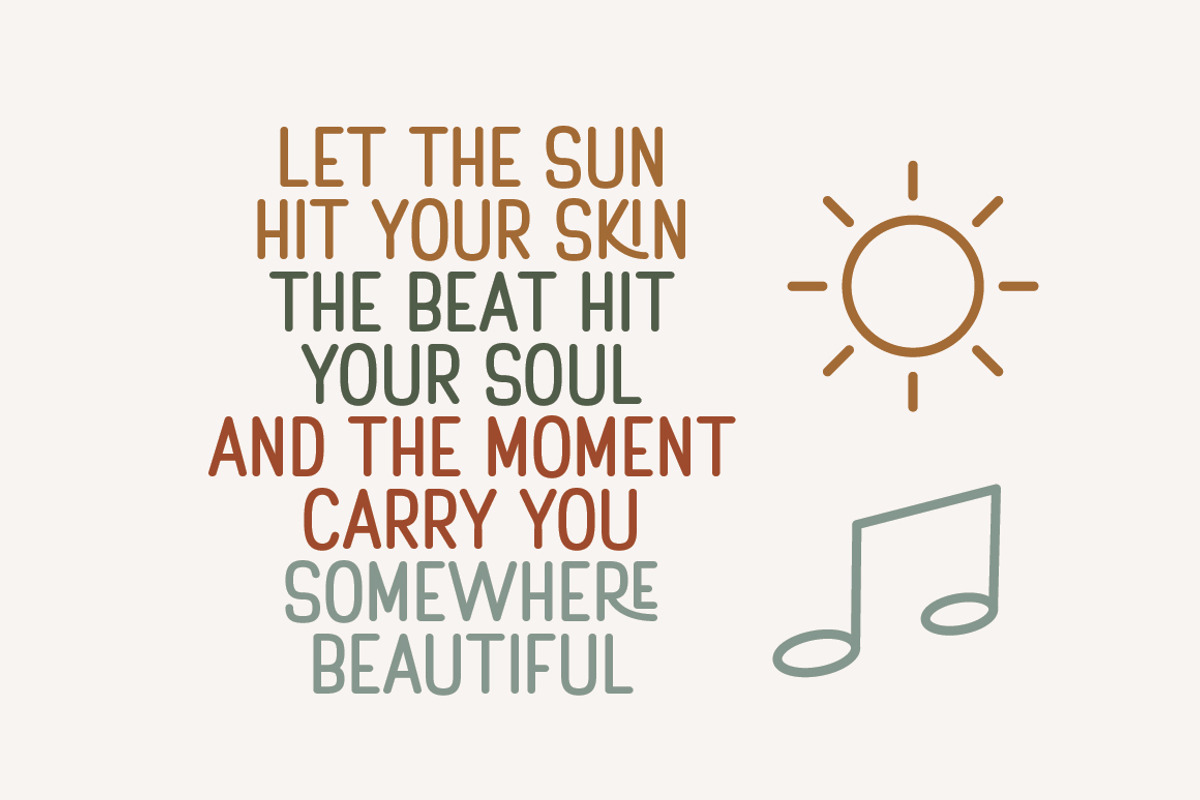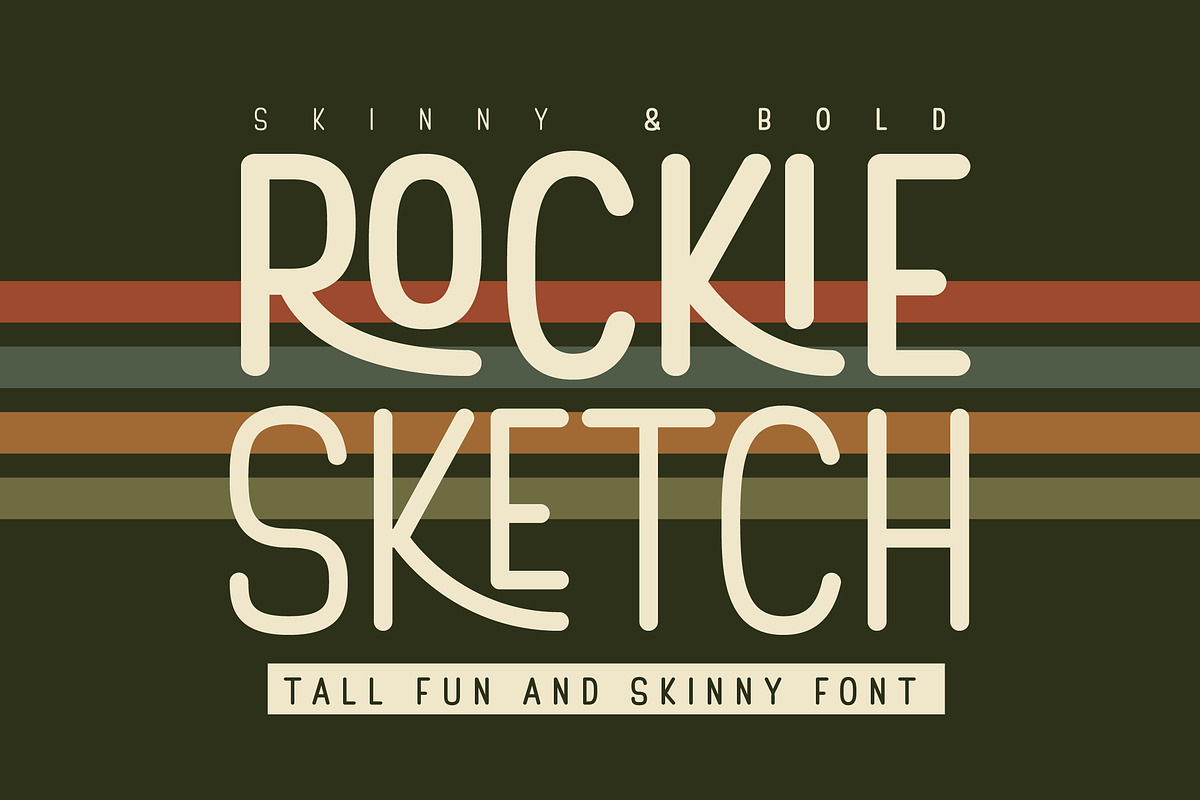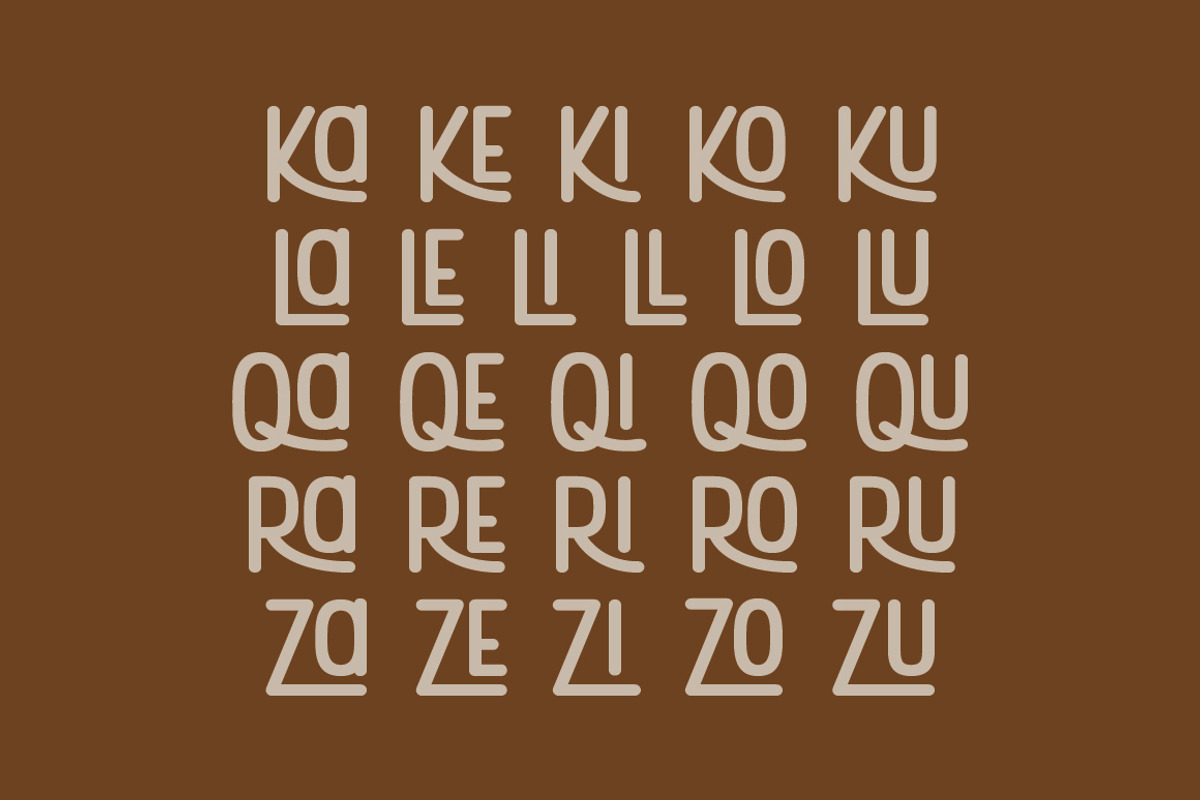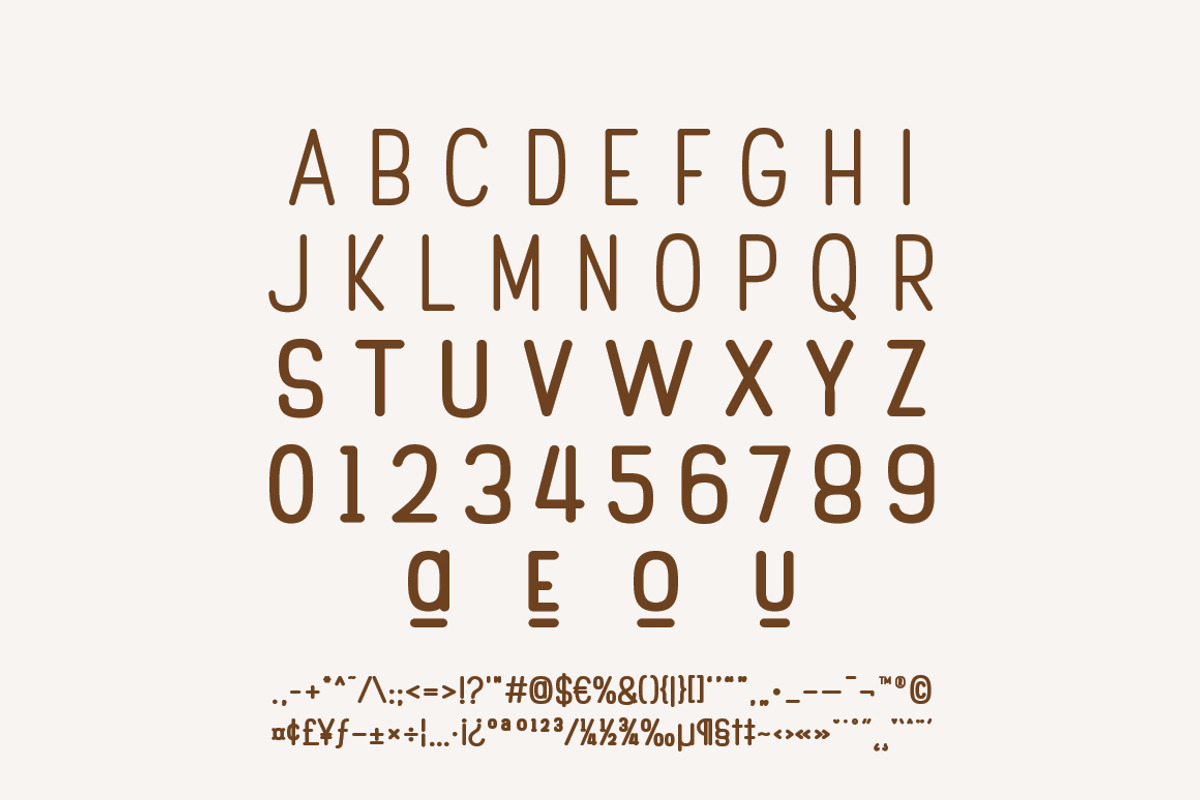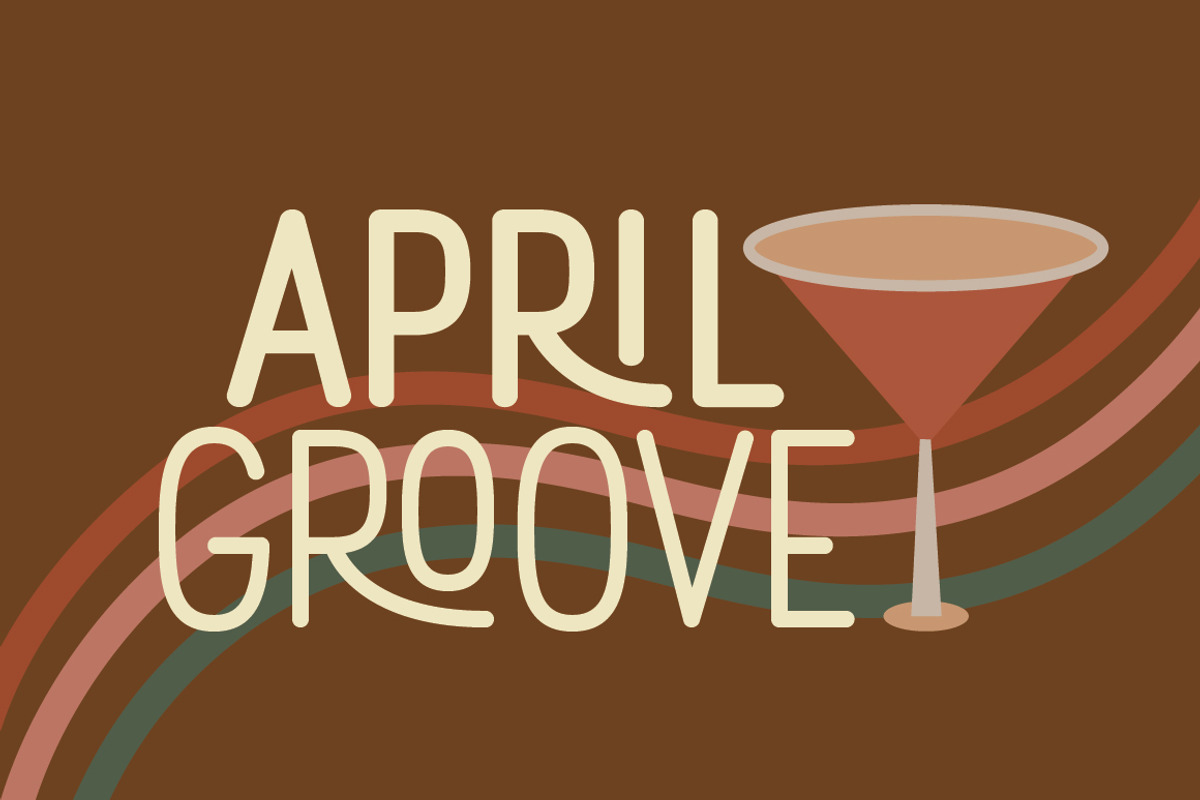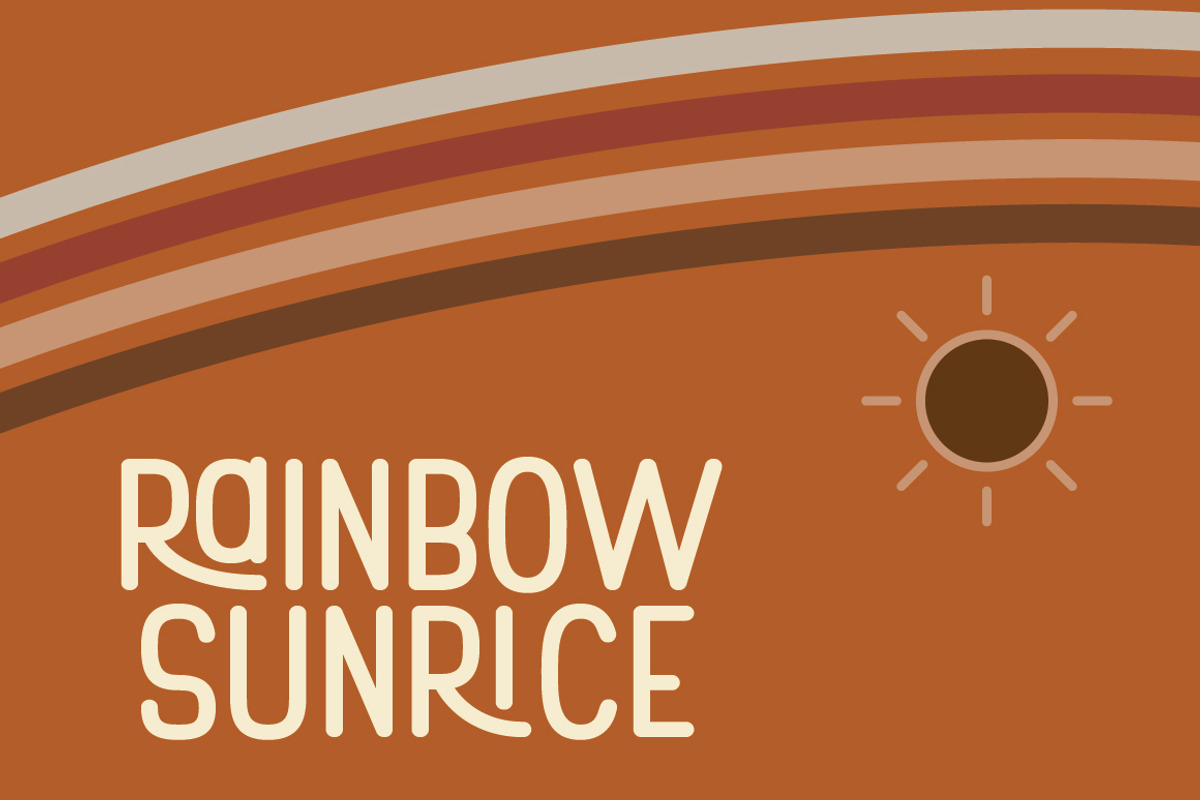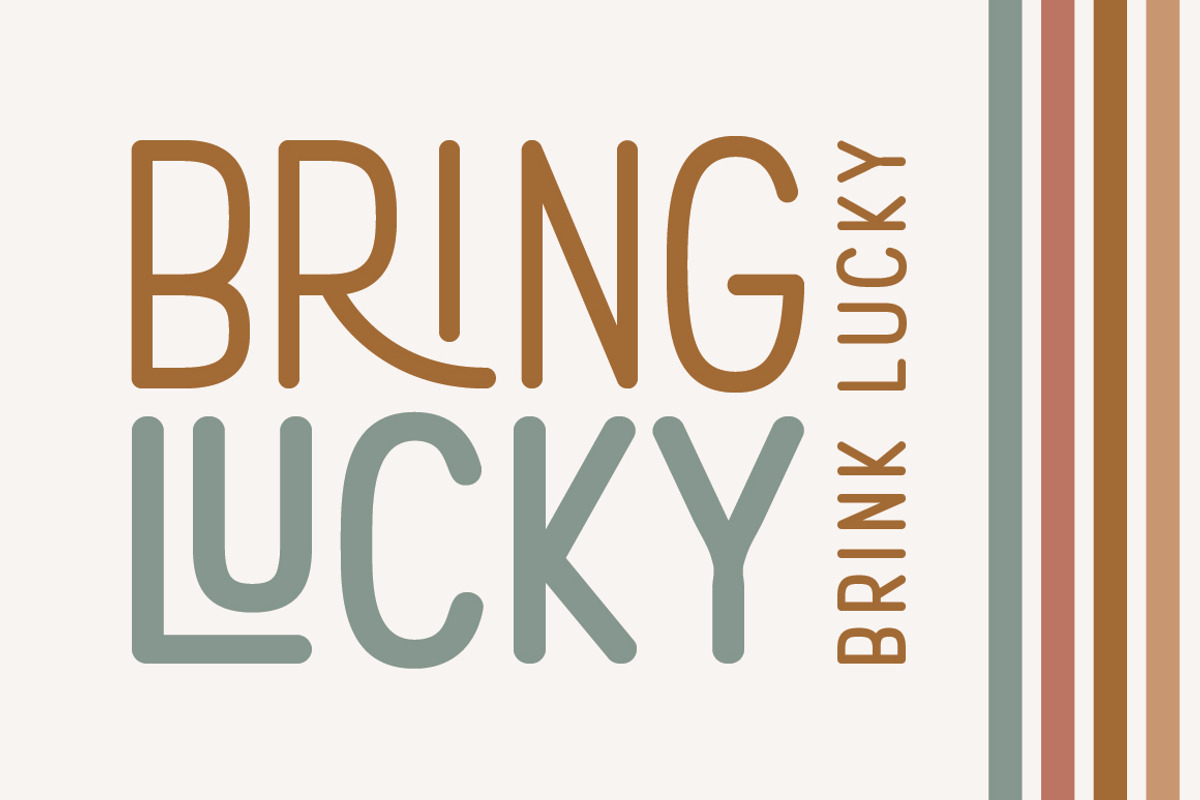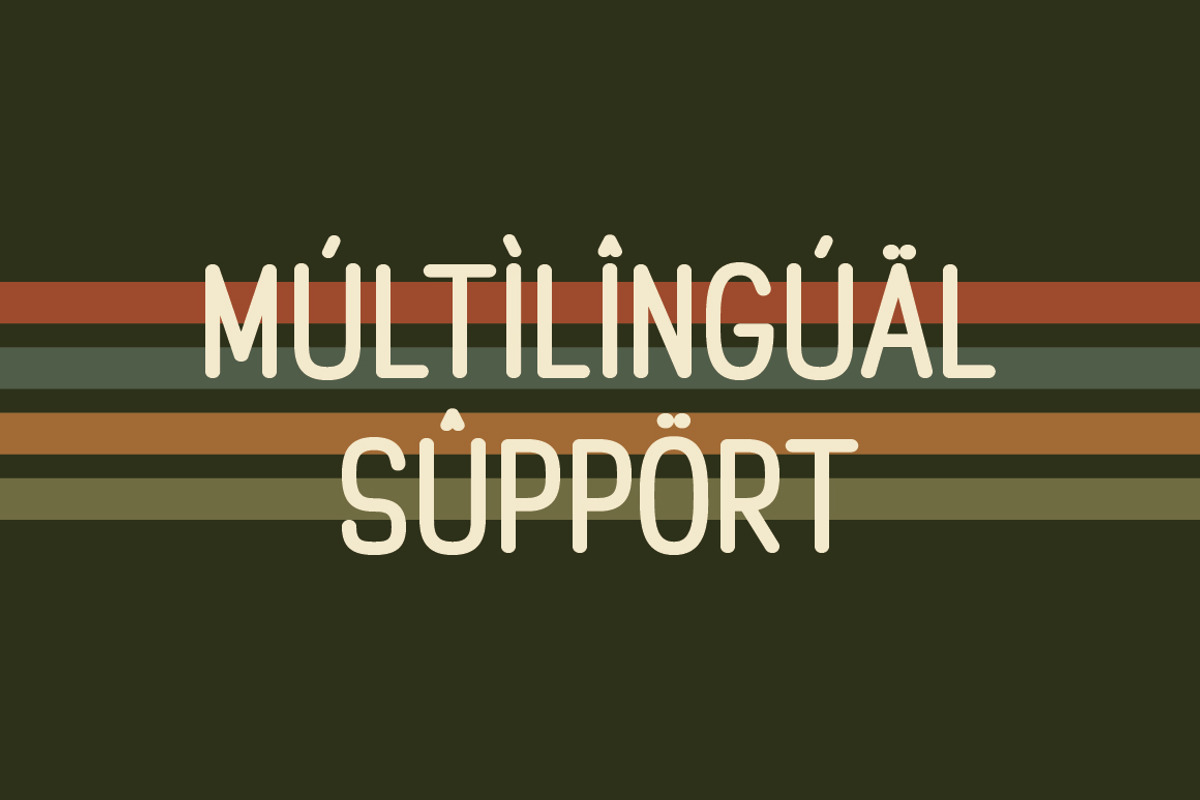
Rockie Sketch – Playful Upright Font
Rockie Sketch is a playful upright display font with a retro-modern touch. It comes in two weights, Skinny and Bold. This font is perfect for logos, posters, packaging and creative branding. It also includes 26 unique ligatures that add natural rhythm and a playful flow to your typography.
- All Caps & Altenates (AEOU)
- 26 ligatures
- PUA Encoded & Multilingual support